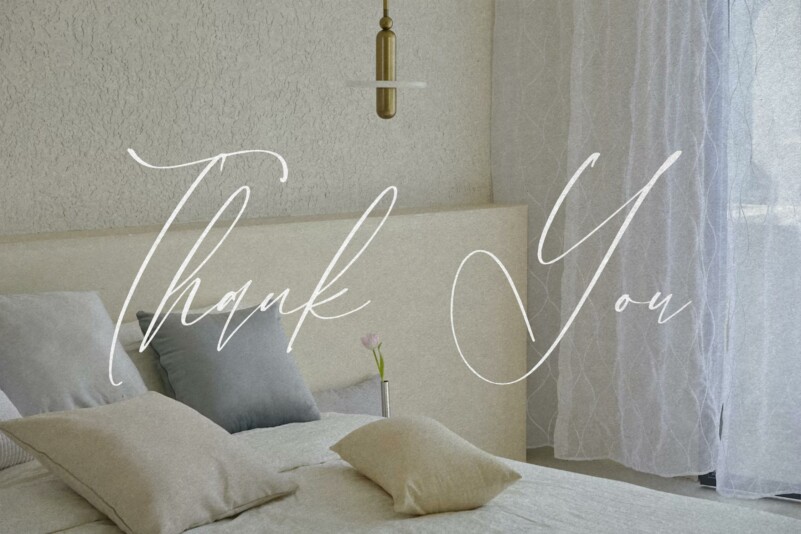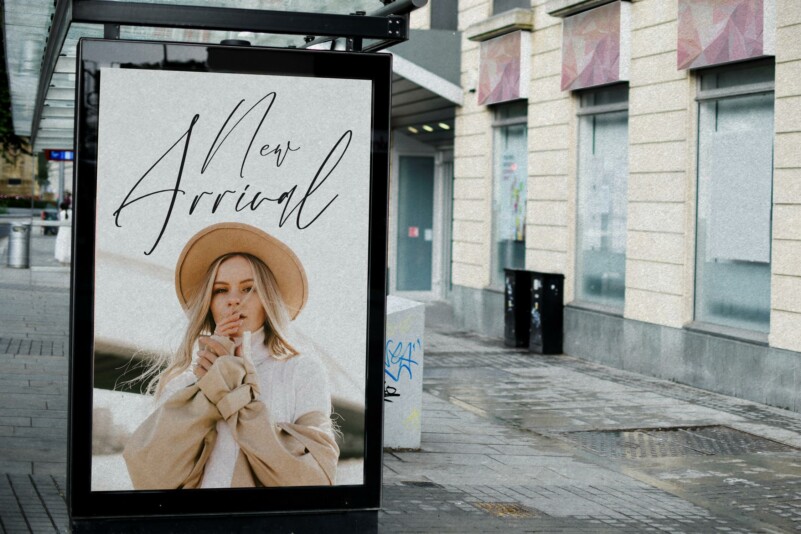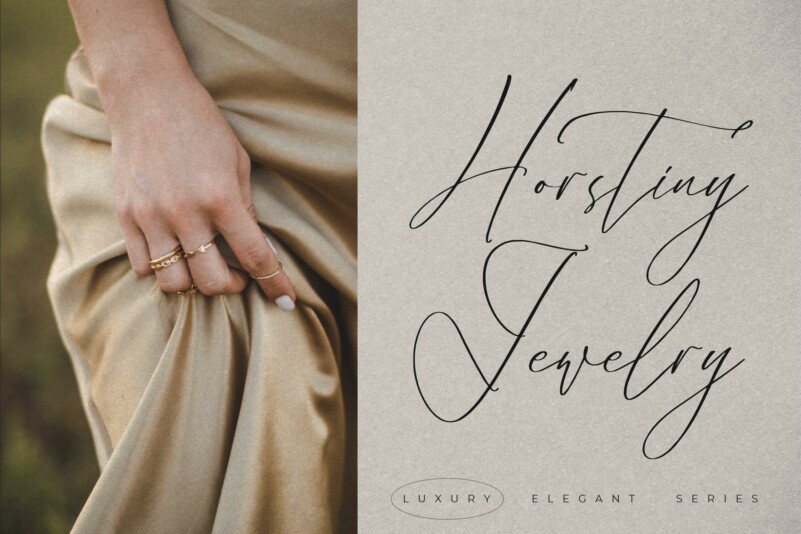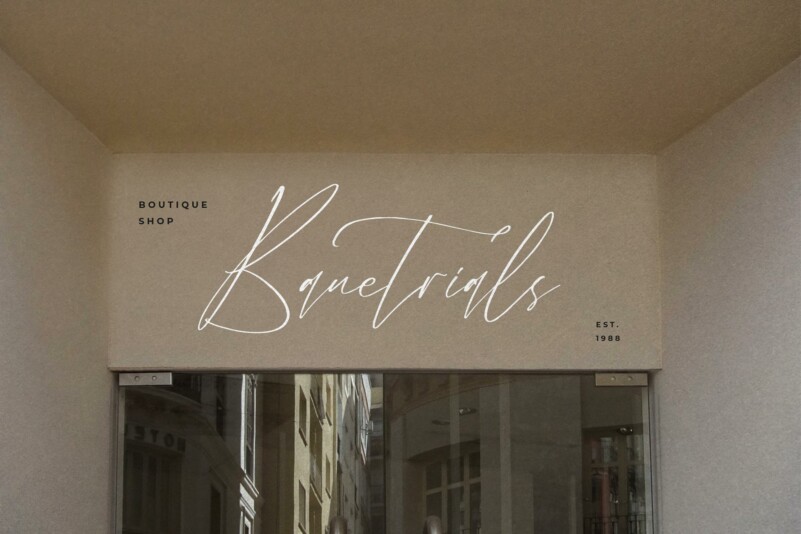
Velodicals Holysmith Font
Velodicals Holysmith Font is a luxury script that has own unique style & modern look. This typeface is perfect for an elegant & luxury logo, book or movie title design, fashion brand, magazine, clothes, lettering, quotes, and so much more.